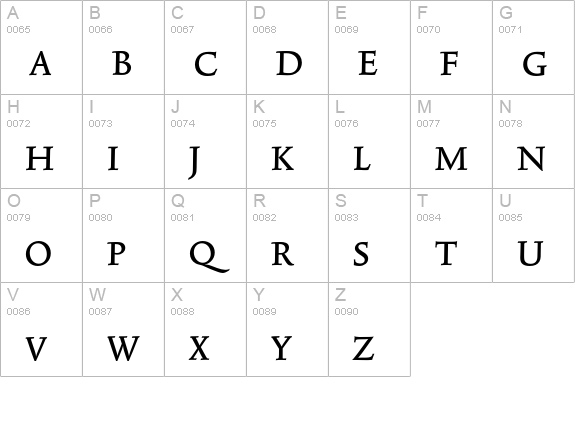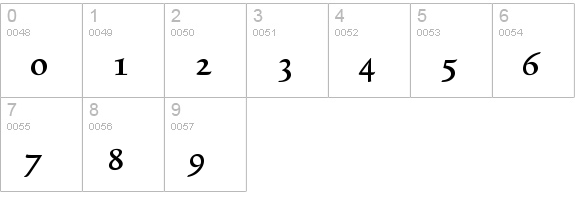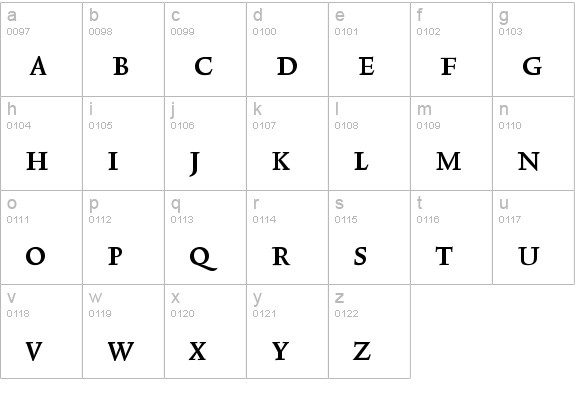
TriniteNo1-MediumWideExp is a bold and eye-catching font that commands attention with its unique and distinctive style. Designed with precision and creativity, this font is perfect for making a bold statement in your designs. The medium width of TriniteNo1-MediumWideExp strikes the perfect balance between elegance and readability, making it suitable for a wide range of applications. Whether you're designing a logo, creating a poster, or crafting a headline, this font will add a touch of sophistication and professionalism to your work. The characters of TriniteNo1-MediumWideExp are meticulously crafted, with clean lines and sharp edges that give them a modern and contemporary look. Each letter is thoughtfully designed to ensure legibility at any size, making it ideal for both print and digital media. One of the best things about TriniteNo1-MediumWideExp is that it is freely available to download at FontsMarket.com. This means that you can easily access and utilize this stunning font in all your creative projects without any cost. With its versatility and quality, TriniteNo1-MediumWideExp is a font that is truly a valuable asset to any designer or typographer. So, if you're looking for a font that combines boldness, elegance, and legibility, look no further than TriniteNo1-MediumWideExp. Download it for free at FontsMarket.com and elevate your designs to a whole new level of visual impact.